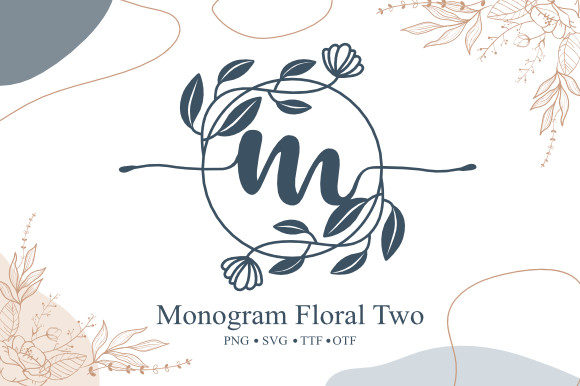
Welcome to the realm of typography, where letters dance and elegance reigns supreme. Let us introduce you to the Monogram Floral Two Font, a masterpiece from the creative forge of Monosimple. It's a decorative font that will transform your designs into exquisite works of art.
Imagine the joy of crafting personalized gifts that speak volumes about your love and care. With the Monogram Floral Two Font, you can create intricate embroidery designs, adding a touch of personal charm to garments, accessories, and home décor. The possibilities are endless.
Envision your designs blooming into life as the Monogram Floral Two Font graces your wedding invitations, adding a touch of romantic elegance to the most special day of your life. This font will capture the essence of your love story, making your invitations truly unforgettable.
Step into the world of mugs adorned with the Monogram Floral Two Font. Create custom designs that reflect your personality and style, adding a touch of charm to your morning coffee or tea ritual. These mugs will become cherished keepsakes, reminding you of the joy and beauty that surrounds you.
Explore the versatility of the Monogram Floral Two Font, suitable for a myriad of projects. It's the perfect choice for creating unique logos, branding elements, social media graphics, and website designs. Let your creativity soar as you transform ordinary designs into captivating works of art.
With the Monogram Floral Two Font, you'll unlock a world of elegance, personalization, and timeless beauty. Experience the joy of creating designs that resonate with your heart and capture the essence of your unique style. Embrace the magic of typography and let the Monogram Floral Two Font guide you on a journey of creativity and expression.